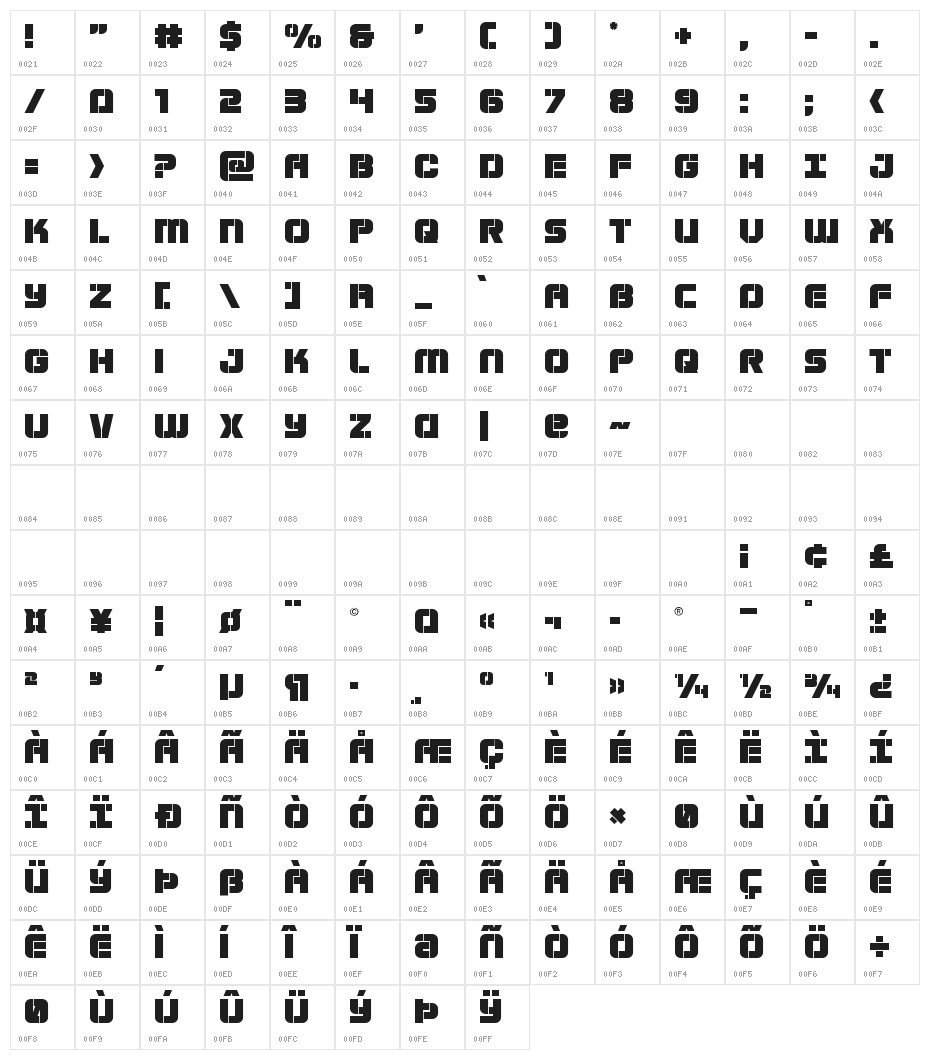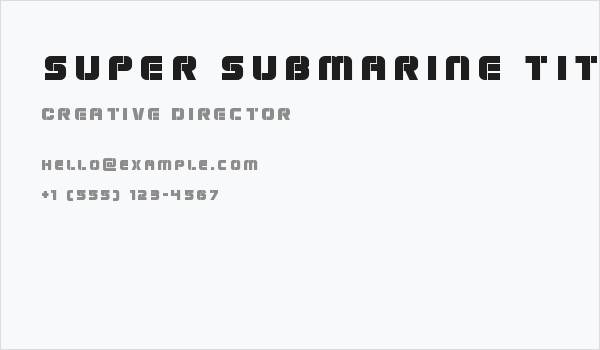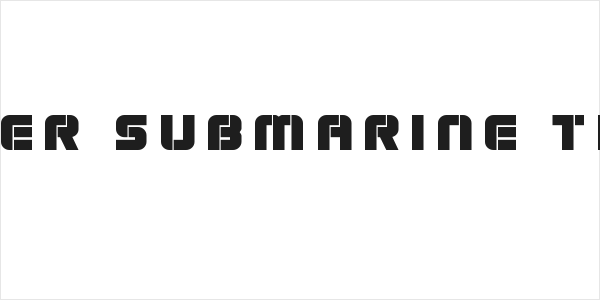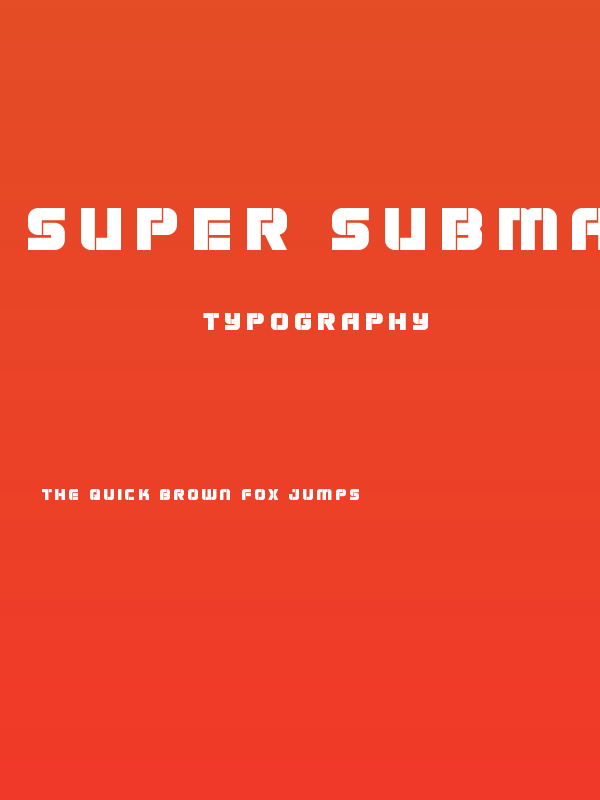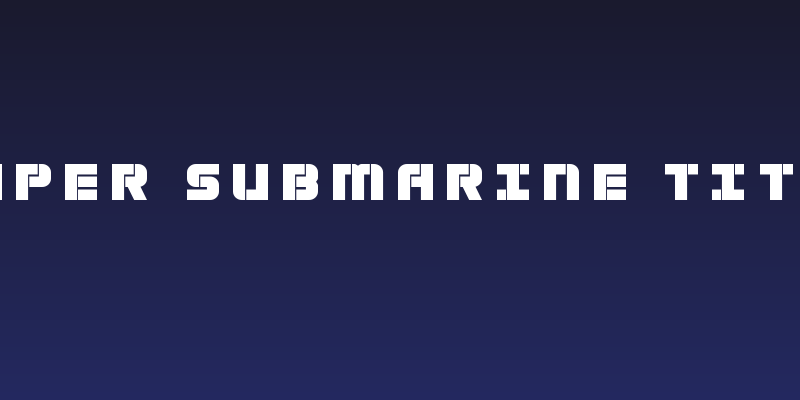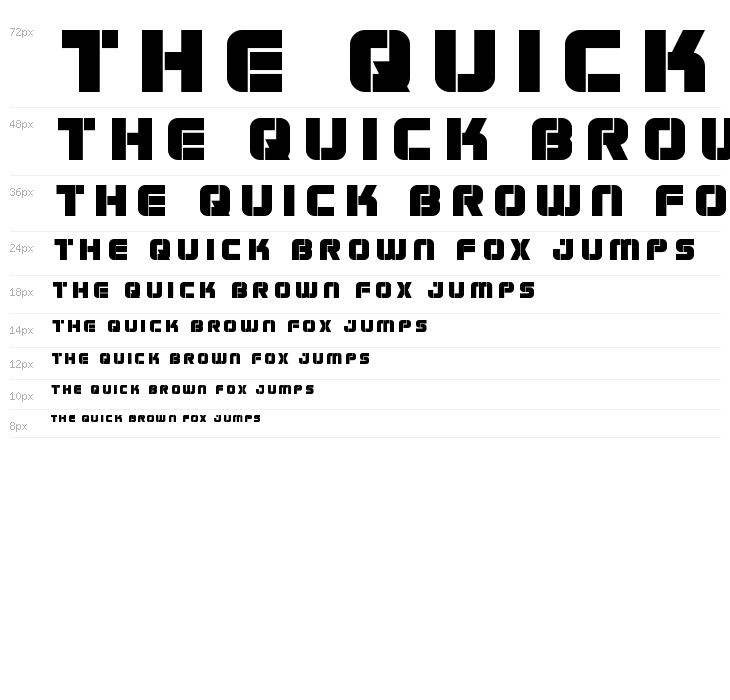
Super Submarine Title Font
Super Submarine Title Description
This font features a bold, geometric design with a strong, industrial feel. The characters are constructed with thick, block-like shapes that convey a sense of strength and stability. The uppercase and lowercase letters maintain a consistent style, with minimal variation in stroke width, giving the font a uniform appearance. The numbers and special characters are equally robust, complementing the overall aesthetic. The font's design is reminiscent of stencil or military-inspired typography, making it suitable for projects that require a bold, impactful look.
| Overall Style | Industrial, Modern |
| Proposed Projects | Ideal for use in posters, logos, branding, and any design requiring a strong, impactful presence. |